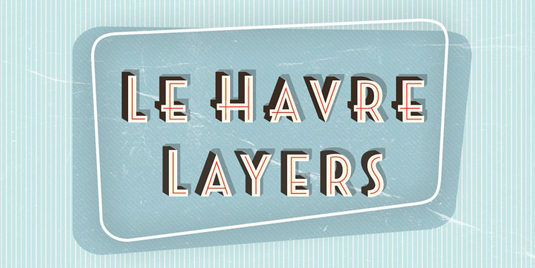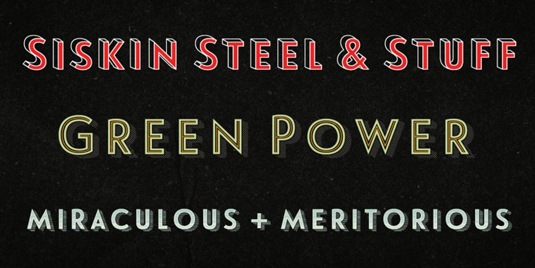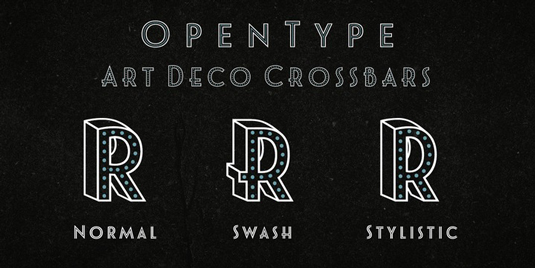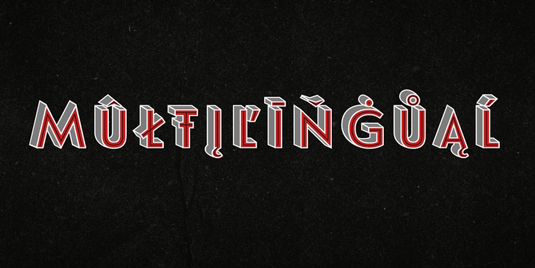
Font of the day: Le Havre Layers
Le Havre Layers by Jeremy Dooley
This charming, layered typeface Le Havre Layers was created by designer Jeremy Dooley. Inspired by the appearance of vintage signage from the 1930s to the 1960s, the art deco and geometric curves will make a beautiful addition to your work.